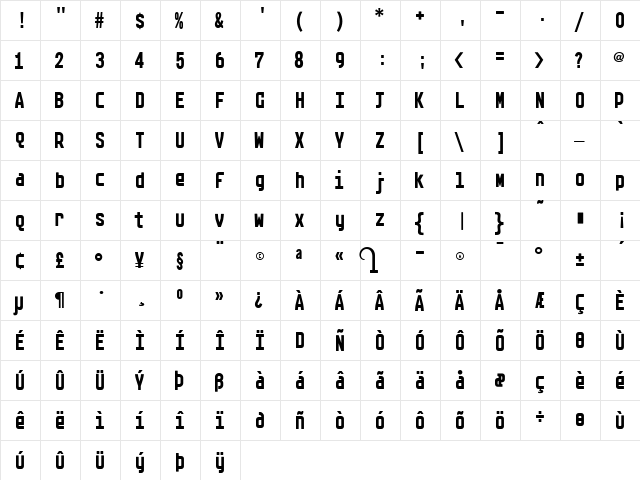
Arete Regular
Design Context for Arete Typeface
Arete offers clean, dependable letterforms without strong stylistic allegiance, making it a practical choice for designers who need flexibility.